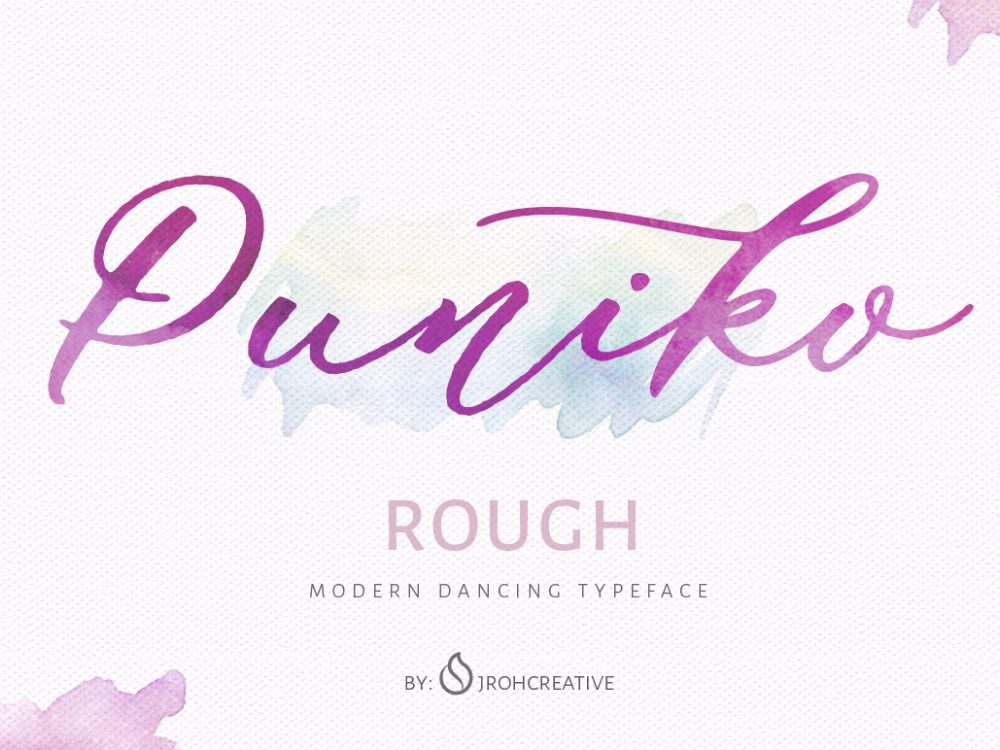
Puniko Free Font is a beautiful handwritten font that has a dense, elegant typeface and is very suitable for various design projects that require a scripted font. These can be wedding invitations, cards, flyers, branding, business cards, stationery, prints, and more. If you wish to access more features and use them for commercial work please buy the full version.